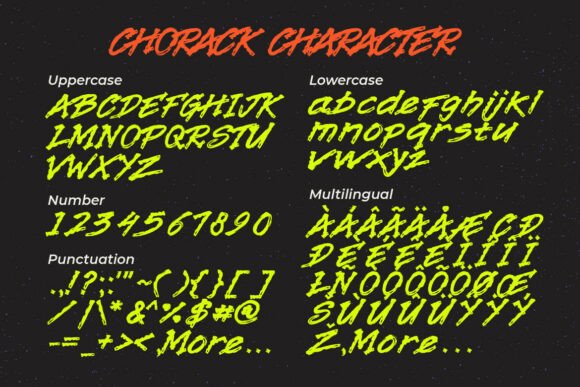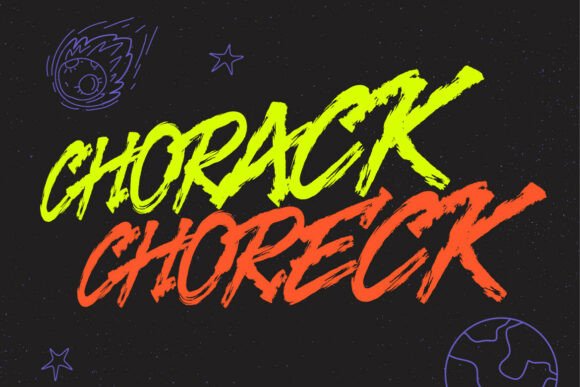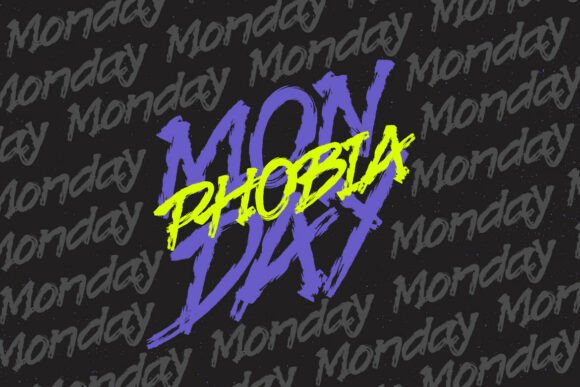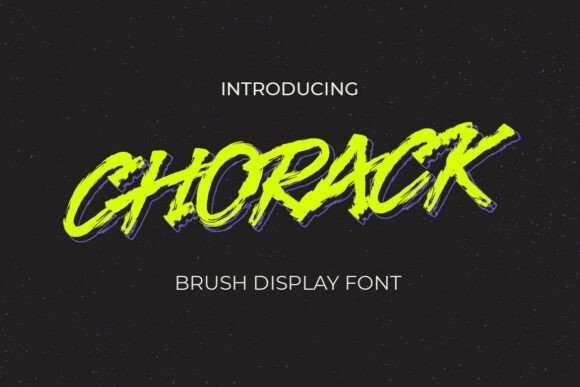
Introduction to Chorack Font
Chorack is not just a font β€” it’s raw energy captured in every brushstroke.
This rugged, expressive display typeface brings an edgy, handcrafted feel to your designs, making each piece stand out with unmistakable character Whether you’re crafting a bold headline, eye-catching poster, or distinctive branding, Chorack delivers a punch of personality.
Chorack Font offers exceptional quality and versatility, making it a valuable addition to your design toolkit. Whether you’re creating for personal projects or commercial use, Chorack Font delivers professional results.